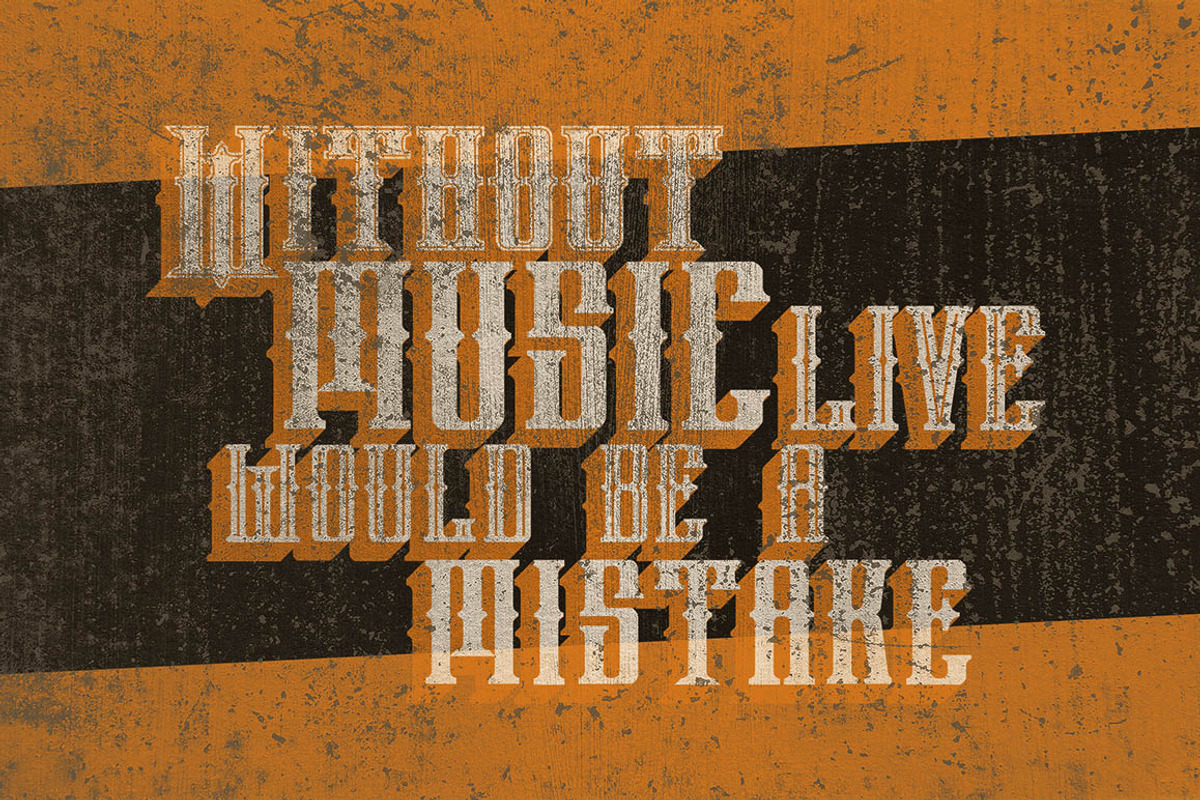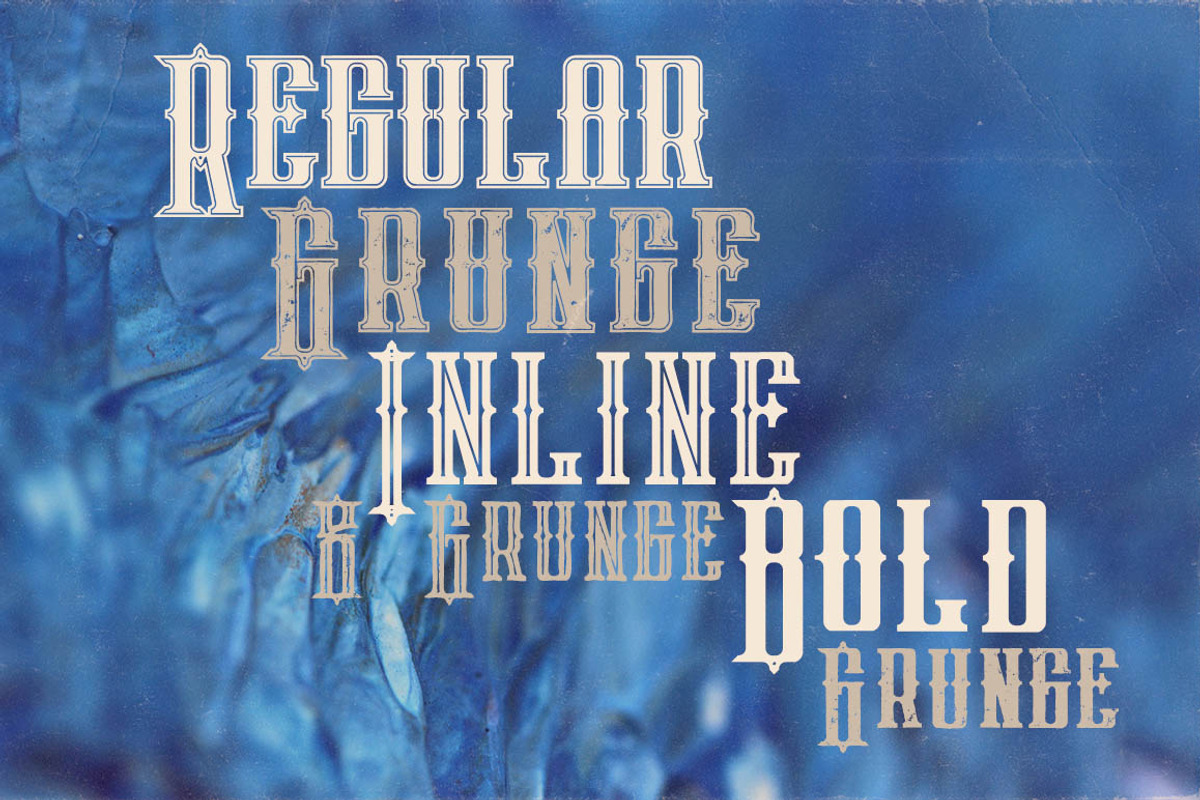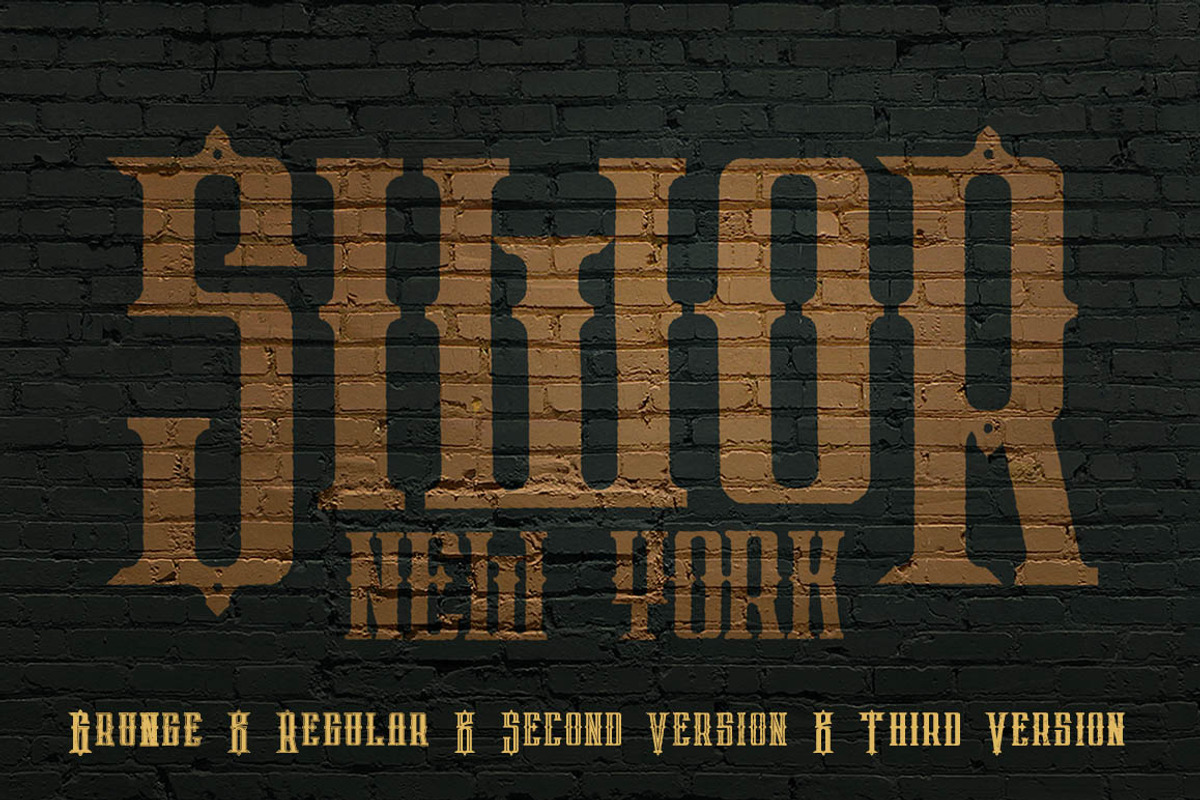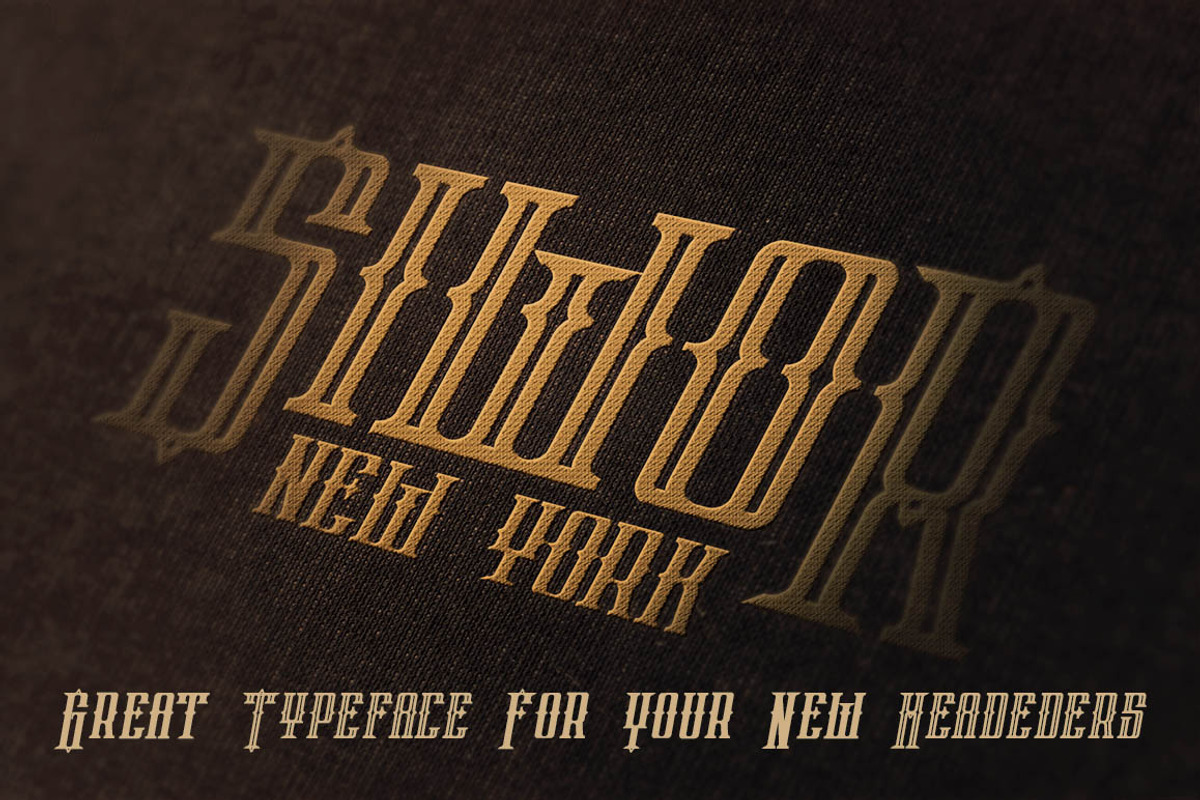
Phoenix Typeface
Phoenix Typeface by JumboDesign is a font selected for branding, posters, packaging, typography.
Why Phoenix Typeface is worth a look
Phoenix Typeface by JumboDesign fits naturally into Branding, posters, packaging, typography.